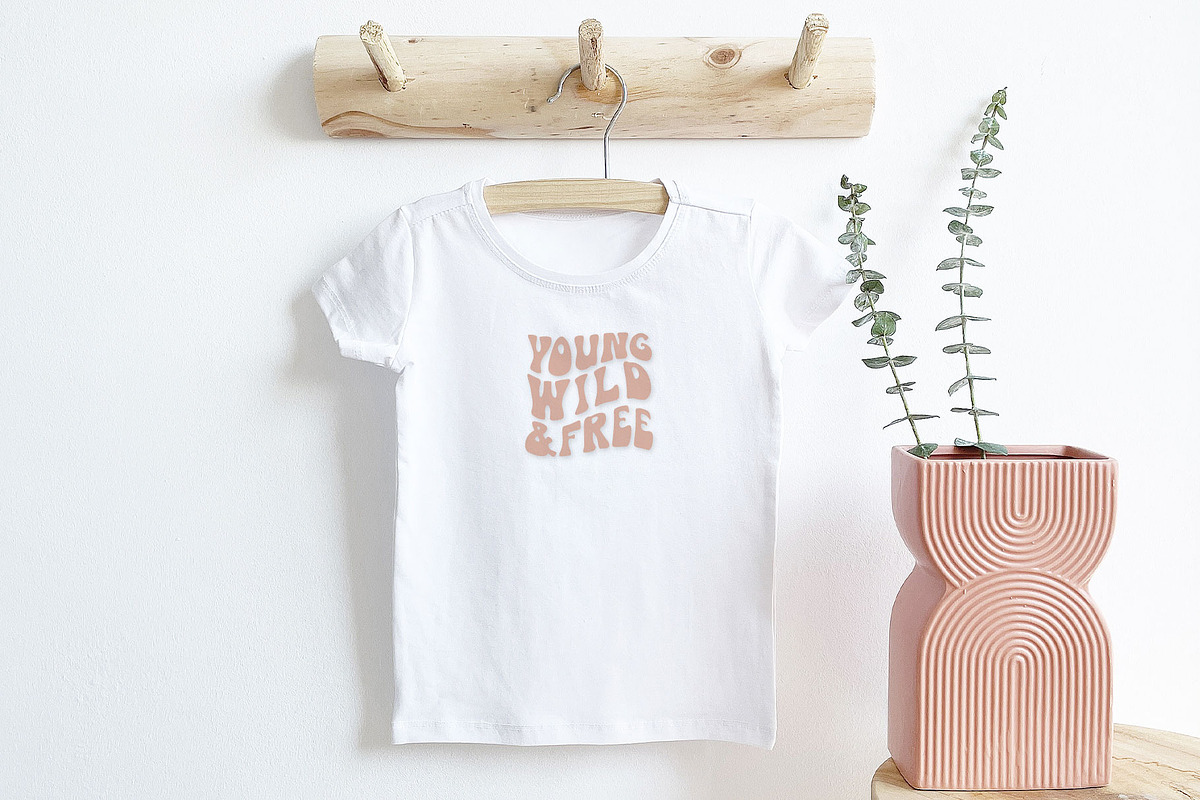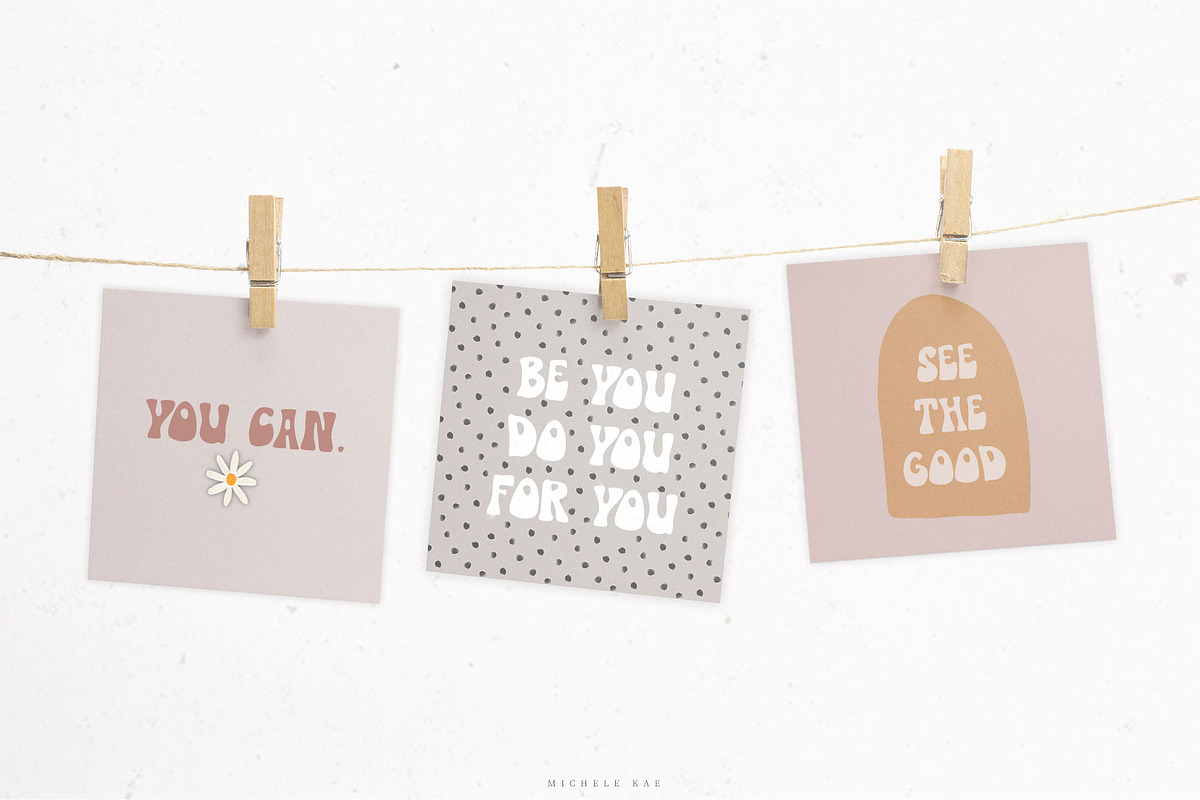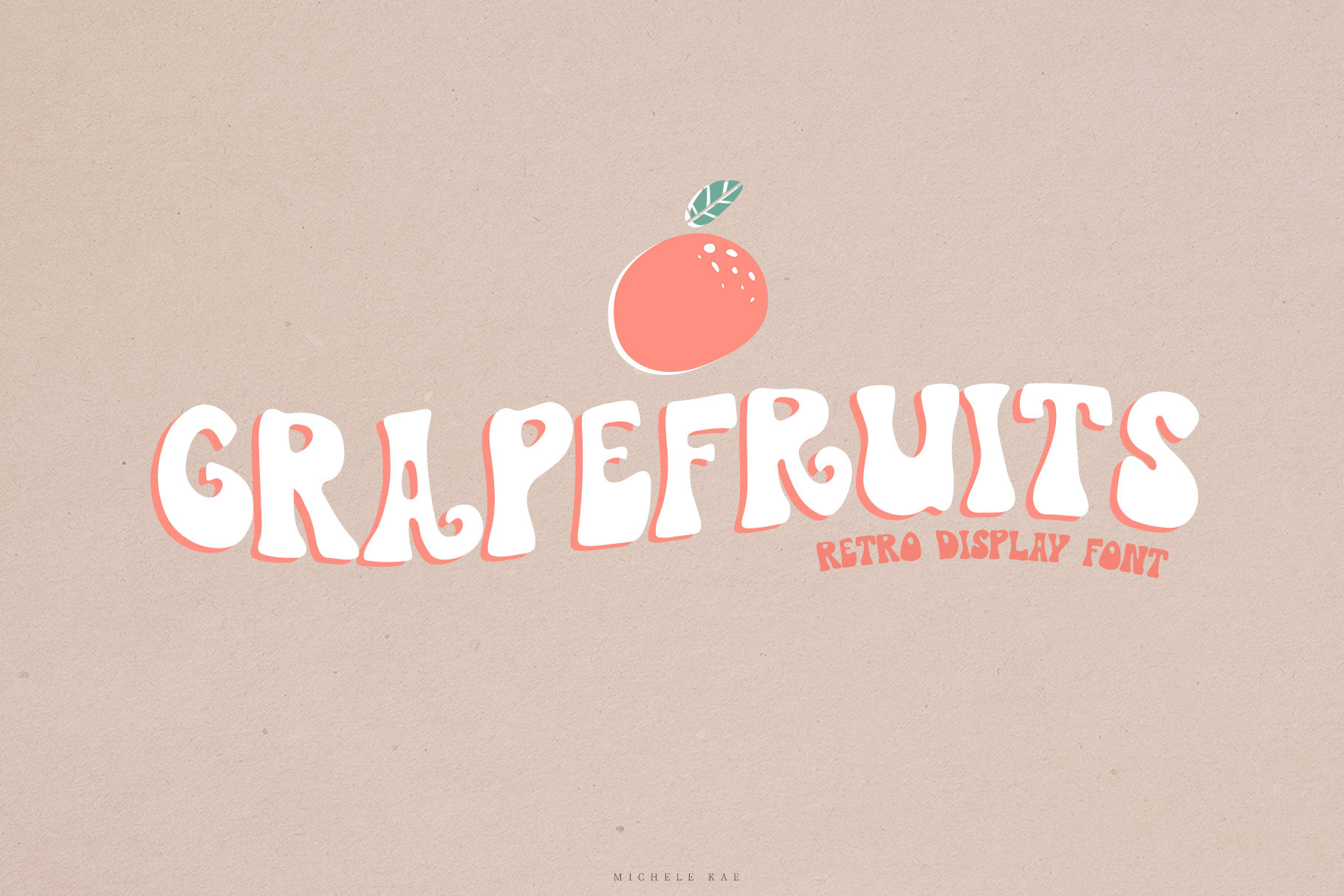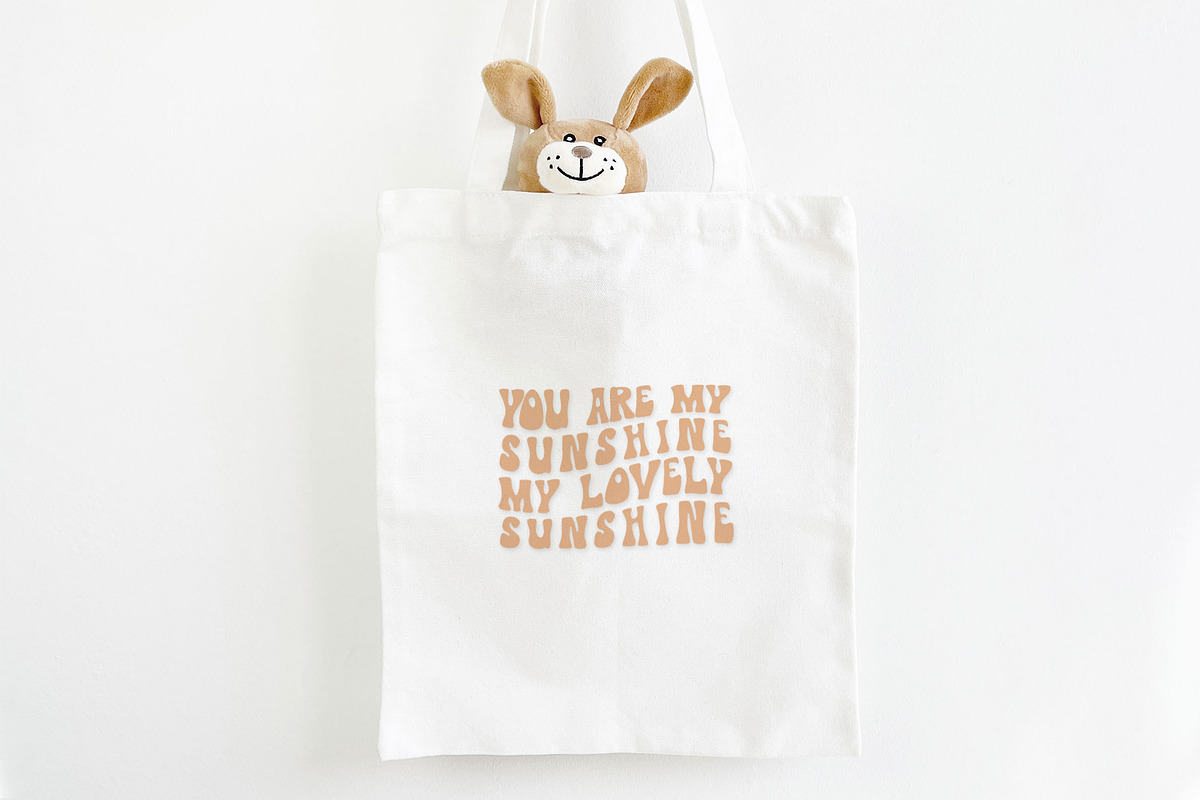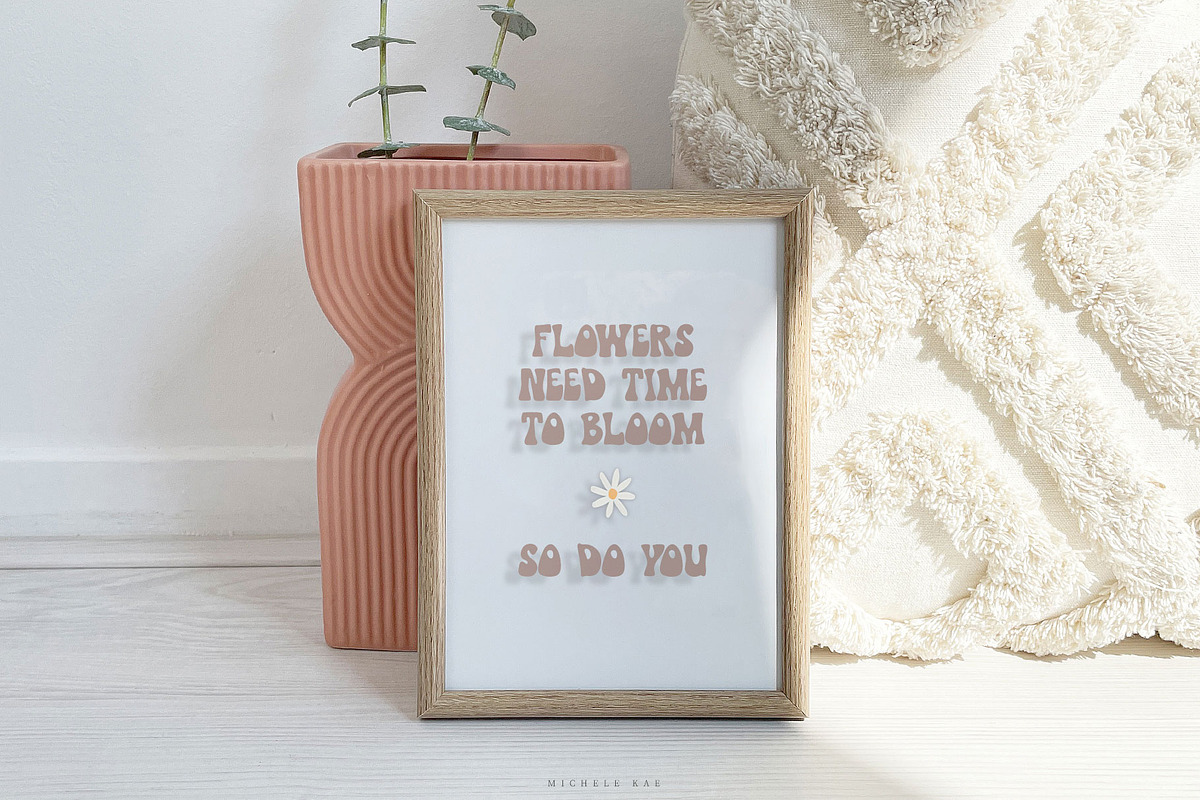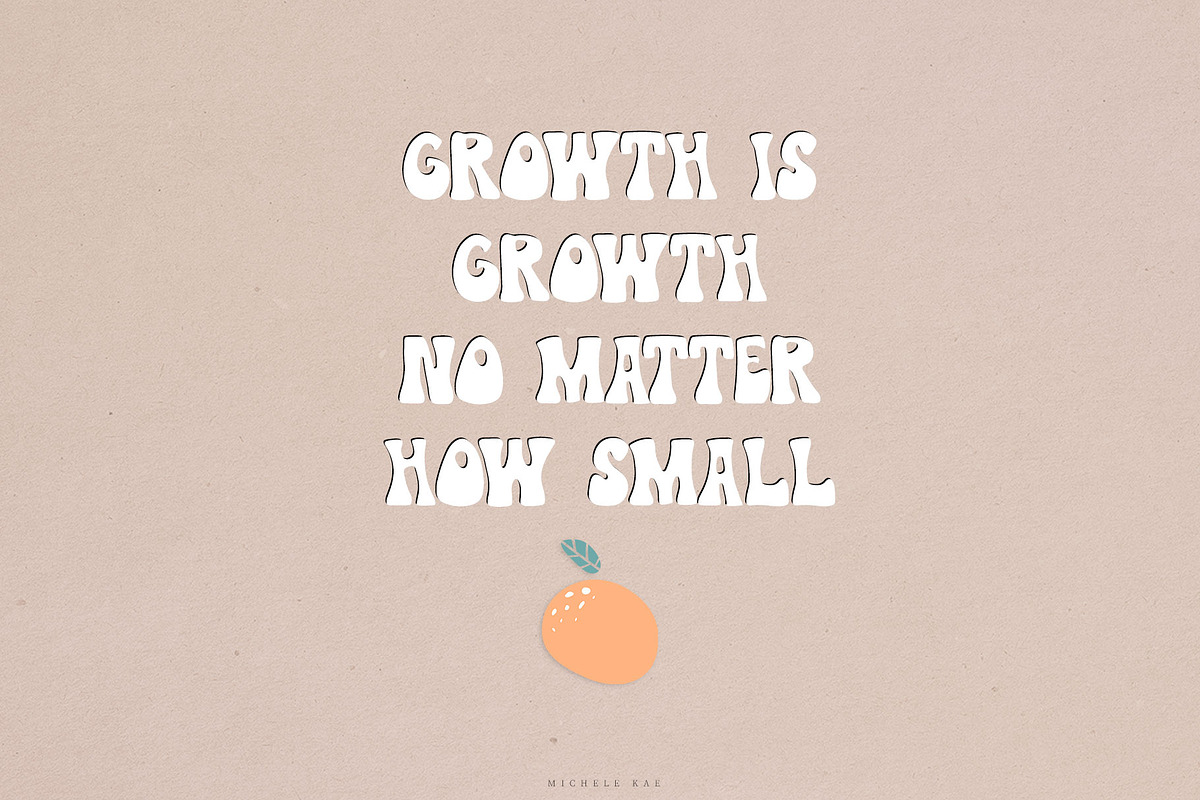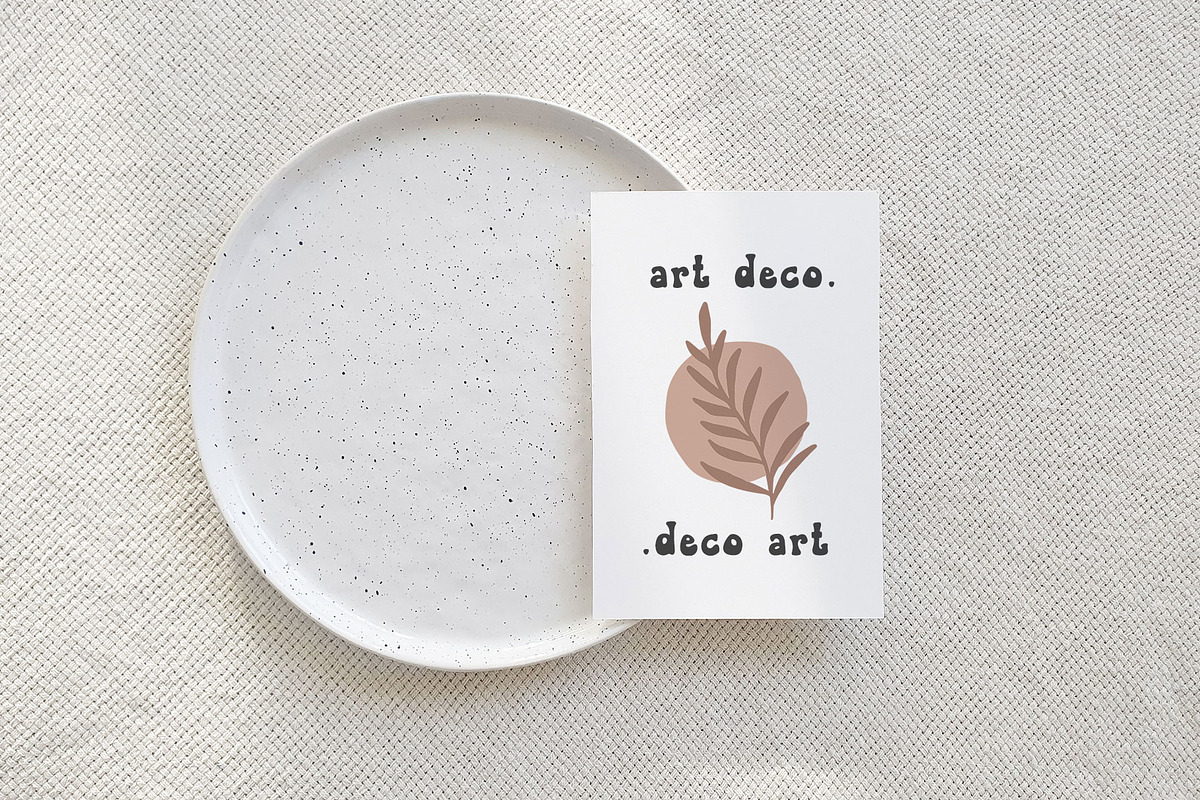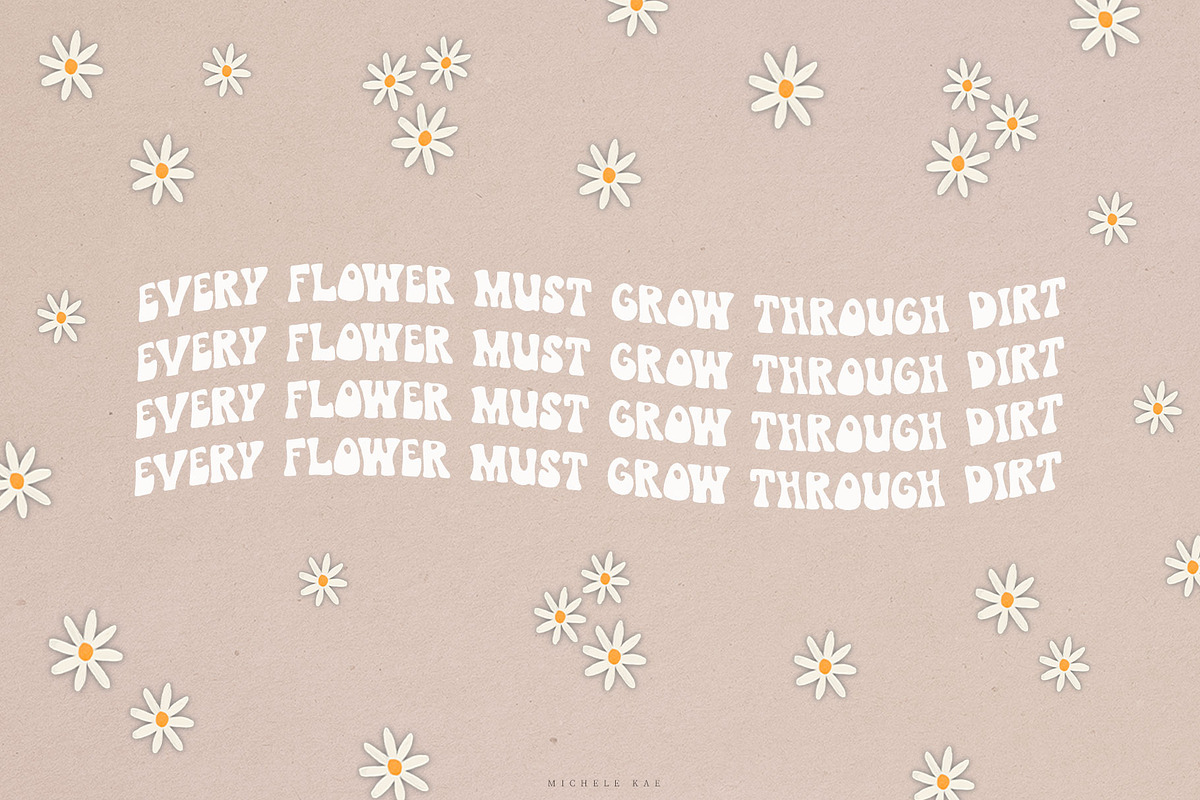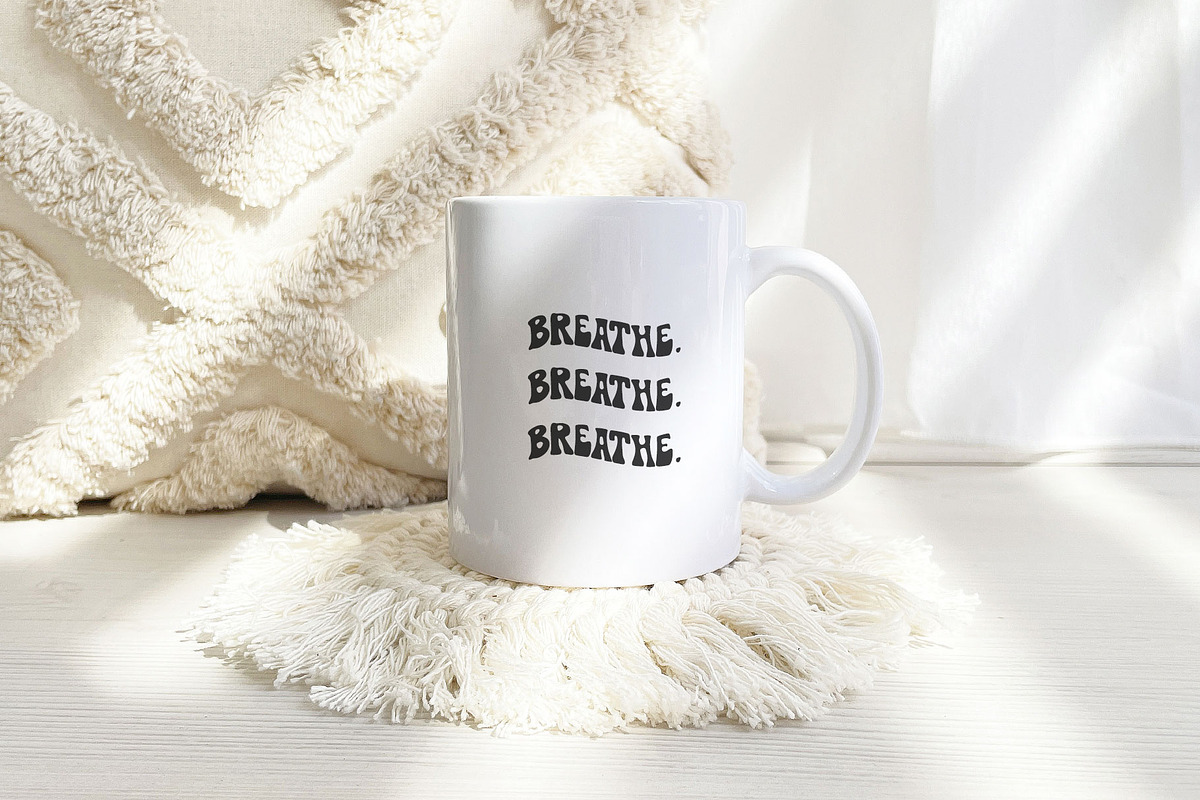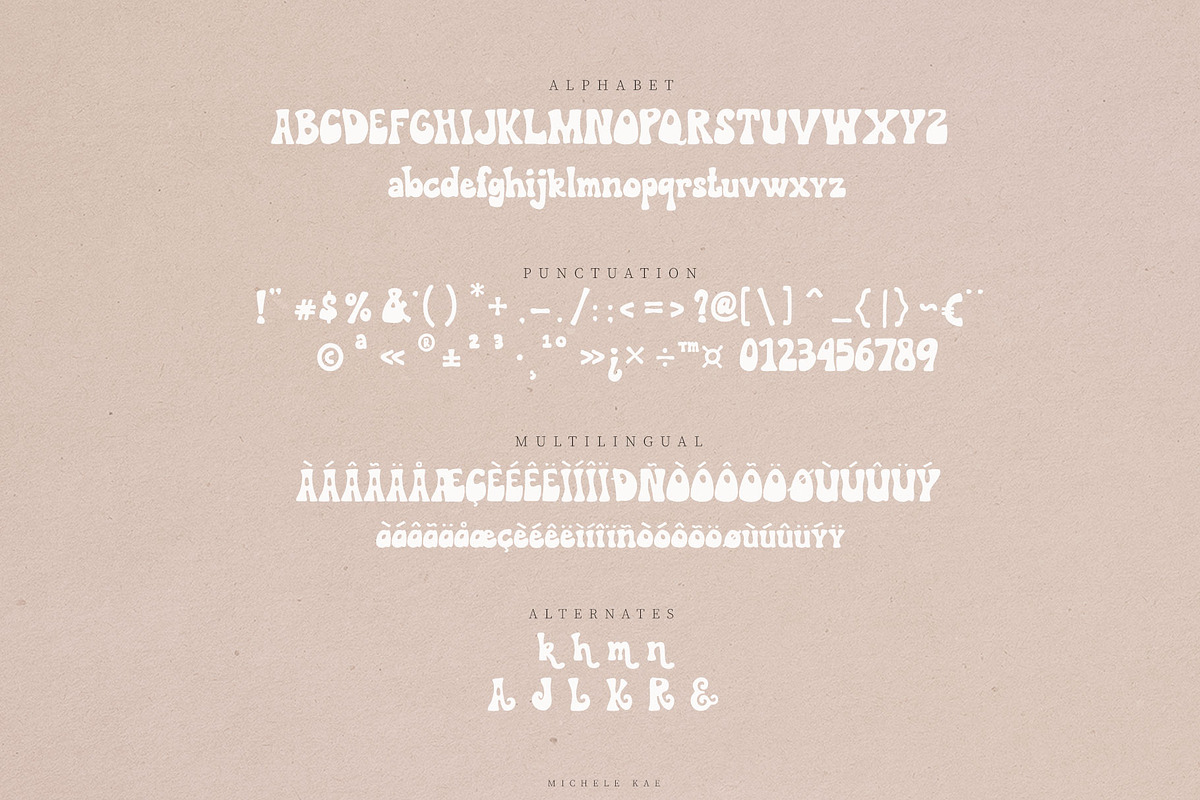
Grapefruits | A Retro Display Font
Grapefruits is a retro font with that perfect seventies vibe, that can be used for logos, branding, social media, quotes and so much more! Grapefruits includes uppercase and lowercase letters, numerals, punctuation, ligatures and alternates.